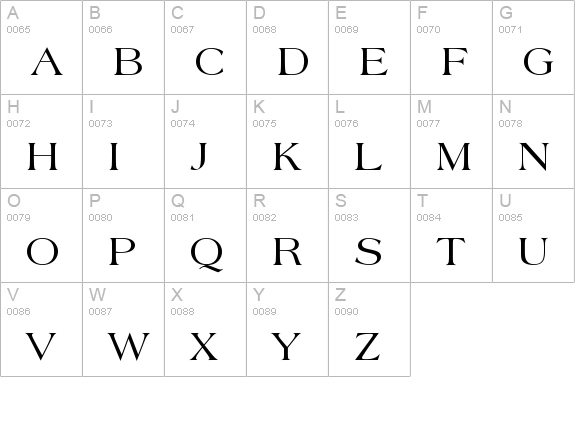
URWAmericanaT Font Details
URWAmericanaT is a versatile and stylish font that captures the essence of Americana with a modern twist. With its clean lines and bold presence, this font is perfect for a wide range of designs, from vintage-inspired logos to contemporary headlines. Its unique combination of classic letterforms and contemporary design elements make it a standout choice for any project. One of the best things about URWAmericanaT is that it is free to download. Yes, you read that right - this amazing font is available for free! Whether you're a professional designer or a hobbyist, you can now add this stunning font to your collection without breaking the bank. To get your hands on URWAmericanaT, simply head over to FontsMarket.com. This reputable website offers a wide selection of high-quality fonts, and URWAmericanaT is no exception. With just a few clicks, you can have this font downloaded and ready to use in your next project. The beauty of URWAmericanaT lies not only in its design, but also in its versatility. It can be used for a variety of purposes, including branding, packaging, advertising, and more. Its strong and confident appearance will instantly grab the attention of your audience and leave a lasting impression. Don't miss out on the opportunity to enhance your designs with URWAmericanaT. Download it for free today at FontsMarket.com and take your projects to new heights.